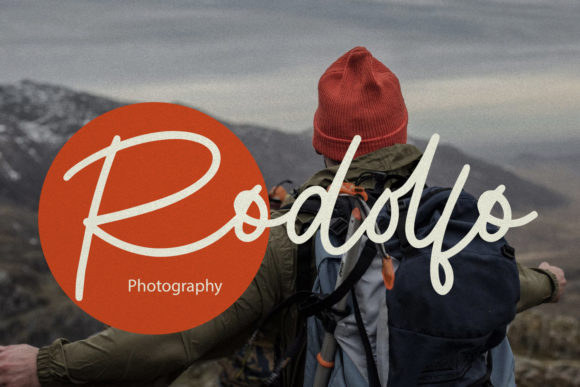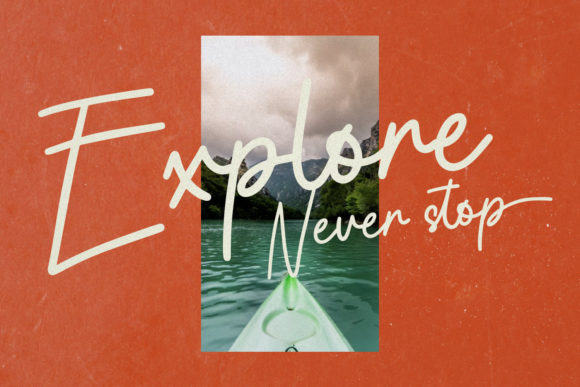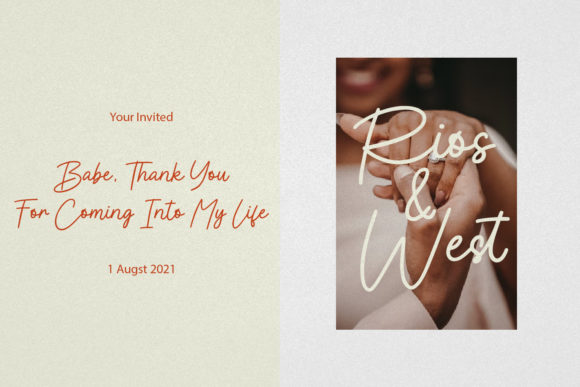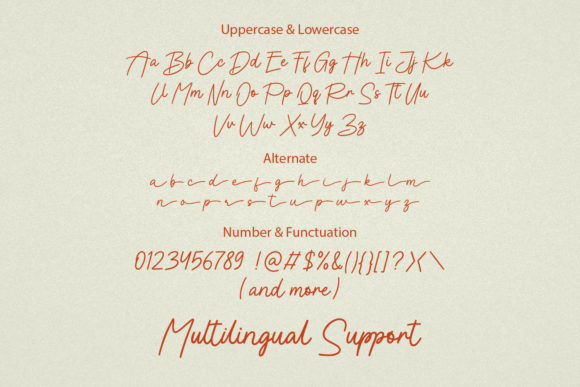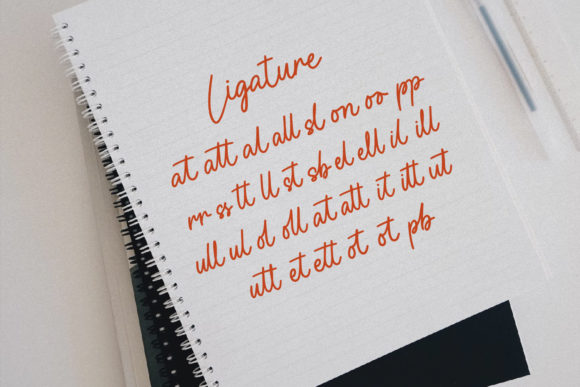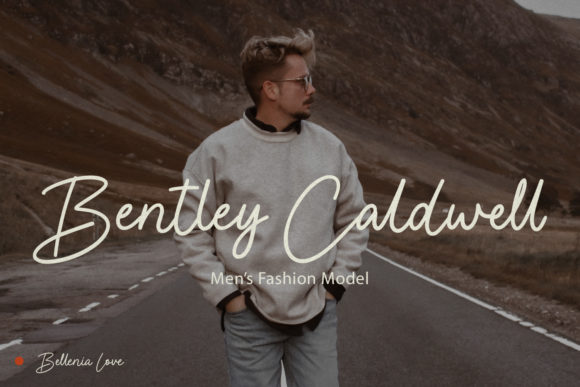
The Perfect Script Font for Your Next Creative Project
As a designer, have you ever stumbled upon a font that makes your heart skip a beat? Maybe it was the perfect combination of elegance and whimsy, or perhaps it was the way it seemed to dance across the page. Whatever it is, I’m sure you’ll fall in love with the Bellenia Love Font the moment you see it.
This beautiful script font is designed to add a touch of romance and sophistication to your designs. With its thin letters and gentle curves, it’s perfect for creating gorgeous wedding invitations, beautiful stationery art, and eye-catching social media posts. The Bellenia Love Font is also PUA encoded, making it easy to access all of the glyphs and swashes you need to create stunning designs.
Whether you’re a seasoned designer or just starting out, the Bellenia Love Font is a valuable addition to your toolkit. Its versatility and elegance make it a must-have for any creative project, and its ease of use will have you falling in love with it in no time.
Bellenia Love Font Key Features
- Font Family: Bellenia Love Font is a script font designed for romantic and elegant typography.
- Character Count: The font includes a wide range of characters, including uppercase and lowercase letters, numbers, and punctuation marks.
- Unique Characteristics: The font features intricate flourishes, swashes, and connectors, making it ideal for wedding invitations, greeting cards, and other romantic designs.
Bellenia Love Font Review
I recently had the chance to work with the Bellenia Love Font, and I’m excited to share my honest review with you. Here’s what I think:
- Unique and whimsical design: The Bellenia Love Font is a true showstopper, with its flowing lines and elegant curves. It’s perfect for adding a touch of romance to your designs.
- Wide range of language support: The font includes a vast range of languages, making it a great choice for global brands and businesses.
- Not suitable for bold or dramatic text: While the Bellenia Love Font is perfect for romantic or elegant designs, it may not be the best choice for bold or dramatic text.
- Limited font sizes: The font may not be as effective at very large or very small font sizes, which could limit its use in certain design contexts.
Overall, I was really impressed with the Bellenia Love Font. While it may have some limitations, its unique design and wide range of language support make it a great choice for many designers. With a little creativity, you can use this font to add a touch of romance and elegance to your designs.
For the best results, use Bellenia Love Font for romantic or whimsical designs, such as:
- Valentine’s Day cards and gifts
- Love-themed posters and prints
Remember to pair Bellenia Love Font with complementary colors and designs to create a visually appealing and effective visual identity.
Alternatives to Bellenia Love Font
Great Vibes is a beautiful, handwritten font perfect for creating a romantic and whimsical atmosphere. It features elegant, flowing lines and a variety of swashes, making it ideal for wedding invitations, quotes, and other love-themed designs.
Comparison to Bellenia Love Font: Great Vibes has a more flowing and organic feel, whereas Bellenia Love Font is more structured and elegant. Great Vibes is also more versatile and can be used for a wider range of designs.
Amarante
Amarante is a romantic and elegant font with a vintage touch. It features intricate details and a soft, flowing style, making it perfect for creating a sense of luxury and sophistication.
Comparison to Bellenia Love Font: Amarante has a more feminine and delicate feel, whereas Bellenia Love Font is more structured and elegant. Amarante is also more suitable for high-end designs and luxury brands.
Q: Can I customize the Bellenia Love Font to suit my design needs?